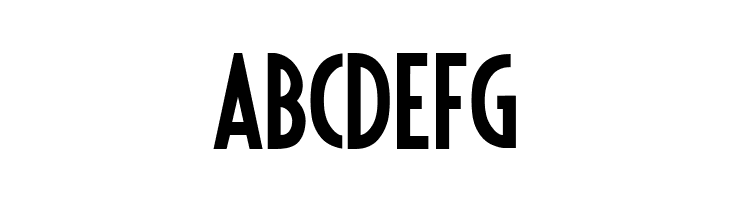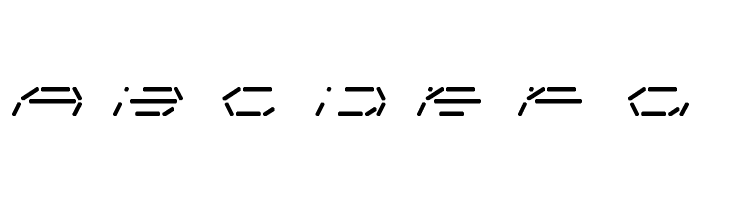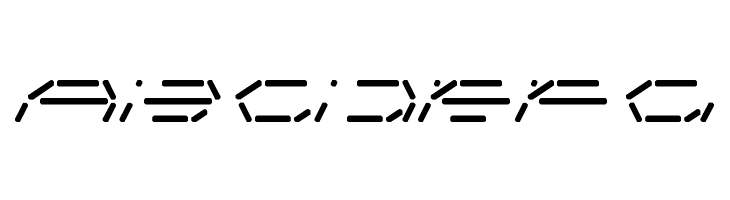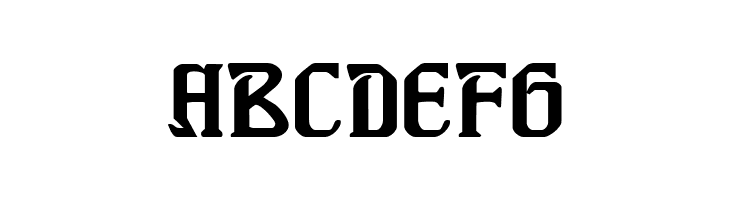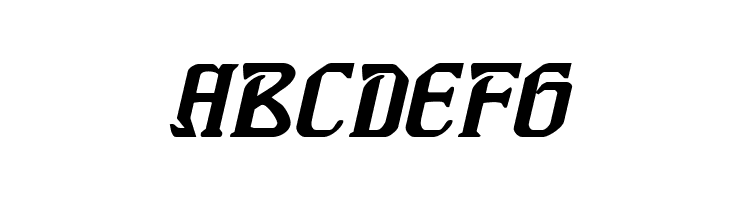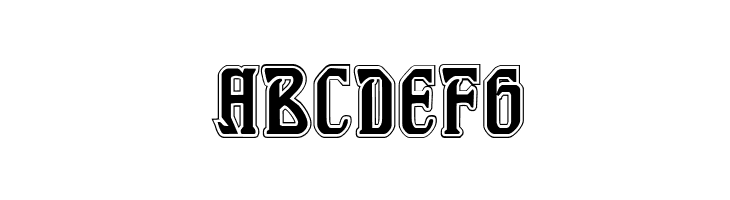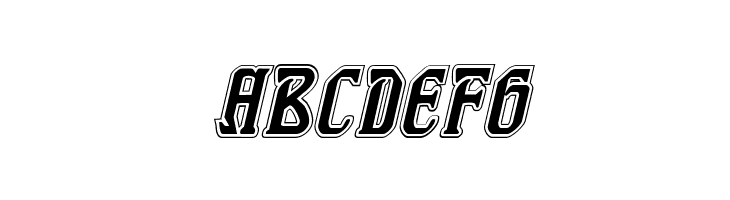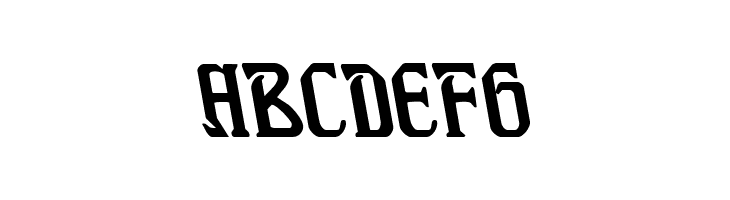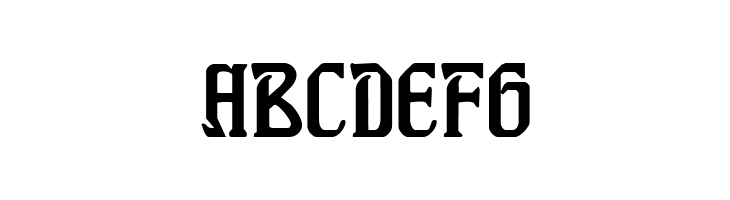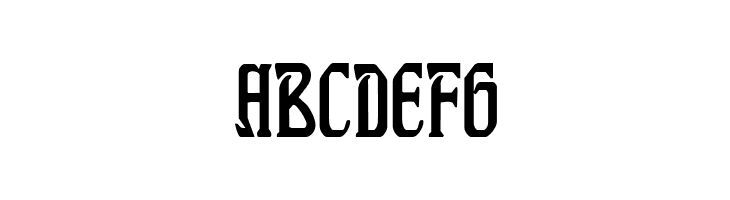
A bold, playful handwritten font with rounded edges and consistent strokes.
A bold, italicized handwritten font with dynamic and playful characteristics.
A playful, handwritten italic font with a dynamic and fluid style.
A playful, handwritten font with thin strokes and an informal style.
A light, italic font with a fluid and dynamic style.
A modern, geometric sans-serif font with uniform strokes and clear characters.
A bold, geometric typeface with clean lines and modern aesthetics.
A bold, modern sans-serif font with clean lines and geometric shapes.
A sleek, italicized font with a modern and dynamic style.
A modern, italic font with clean lines and a slightly condensed style.
A modern, outlined geometric font with a clean and minimalistic style.
A modern, geometric outline font with consistent line thickness and open structure.
A decorative font with bold, outlined letters encased in textured square frames.
A decorative, creature-themed display font with bold, illustrative glyphs.
A bold, 3D italic font with outlined characters and a dynamic style.
A bold, 3D font with angular, geometric characters and a shadow effect.
A bold, italicized font with a decorative, three-dimensional shadow effect.
A bold, decorative font with outlined characters and a vintage flair.
A bold blackletter font with a medieval and authoritative style.
A bold, italicized font with thick strokes and a dynamic slant.
A bold, condensed blackletter-inspired font with sharp, angular lines.
A bold, condensed, and italicized font with sharp, angular edges and high contrast.
A bold, blackletter-style font with sharp, angular lines and a Gothic influence.
A bold, expanded italic font with high contrast and a vintage-modern style.
A bold, italic font with angular edges and a dynamic style.
A bold, left-leaning font with sharp angles and a dynamic style.
A bold, angular font with a blackletter-inspired design.
A bold, dynamic font with tall, narrow letterforms and high contrast strokes.
A segmented, monospaced font with a digital, technical appearance.
A segmented, digital-style font with a futuristic and technical appearance.
A historical and classical font with sharp, angular strokes and distinct serifs.
A retro-themed pictorial dingbat font with vintage illustrations.